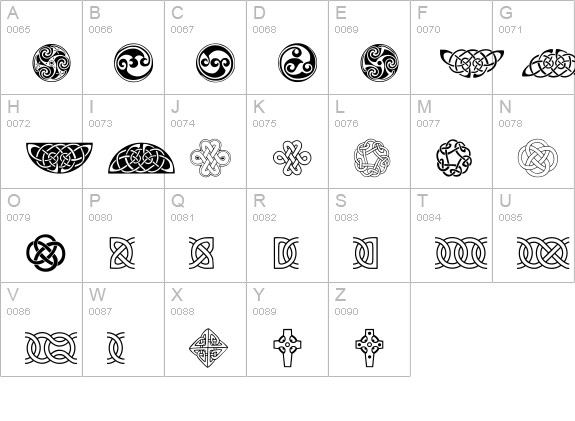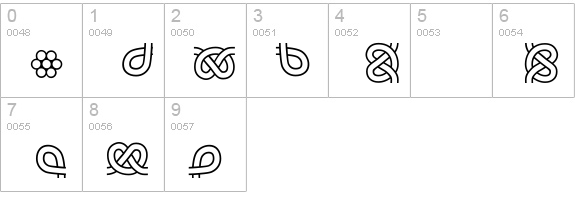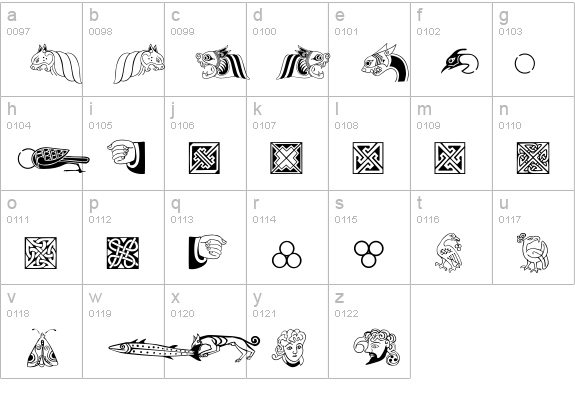
Kells Extras Font Details
Kells Extras font is a beautifully designed typeface that adds a touch of elegance and sophistication to any project. With its intricate details and graceful curves, this font is perfect for creating stunning headlines, titles, and logos. What sets Kells Extras apart is that it is not only visually appealing but also free to download. Yes, you read that right – this amazing font is absolutely free! Now you can enhance your designs without worrying about breaking the bank. Whether you're a graphic designer, a web developer, or simply someone who appreciates the art of typography, Kells Extras font is a must-have in your collection. Its versatility allows it to be used in various design projects, from branding and advertising to invitations and packaging. To get your hands on this incredible font, simply head over to FontsMarket.com. There, you can easily and freely download Kells Extras and start incorporating its beauty into your creations. Don't miss out on this opportunity to elevate your design game – get Kells Extras font today!